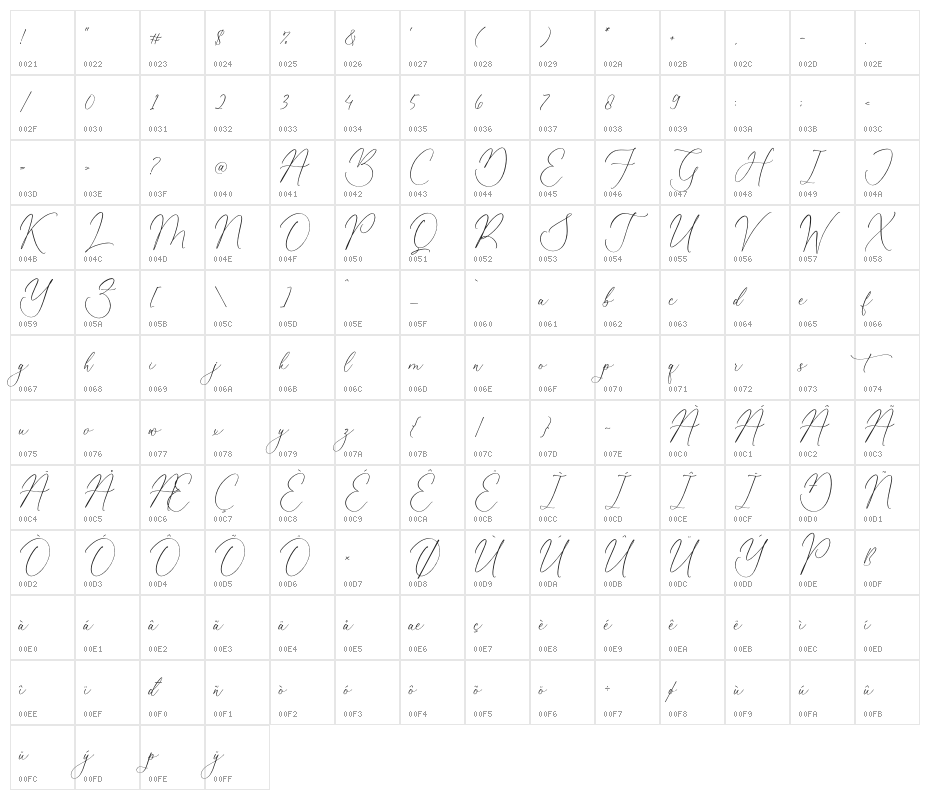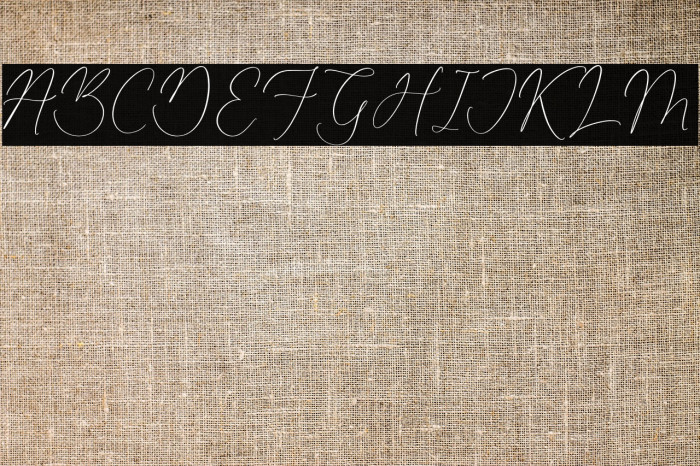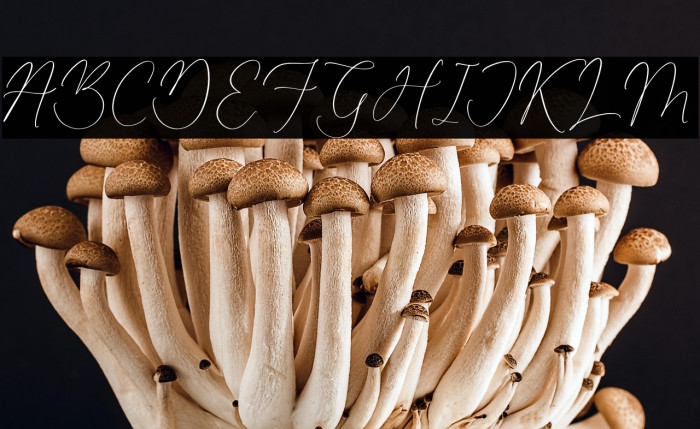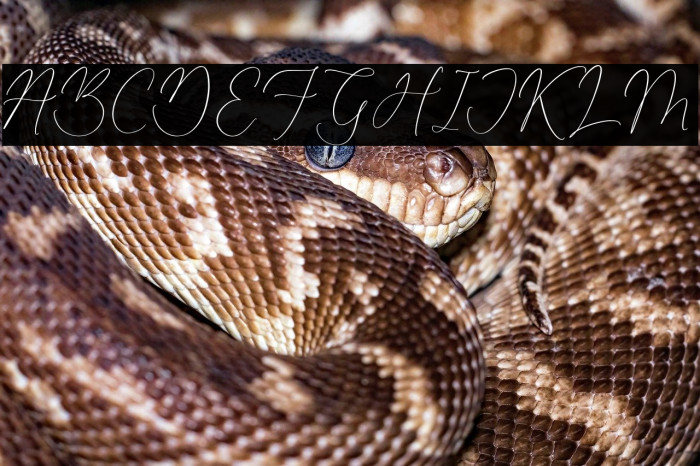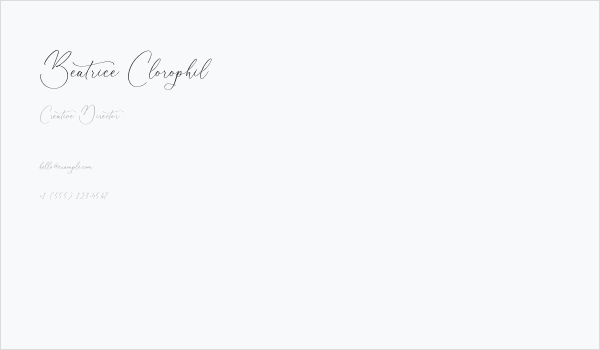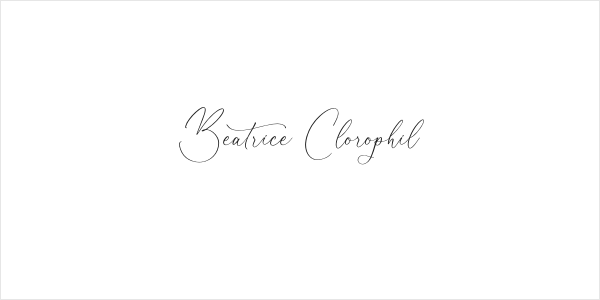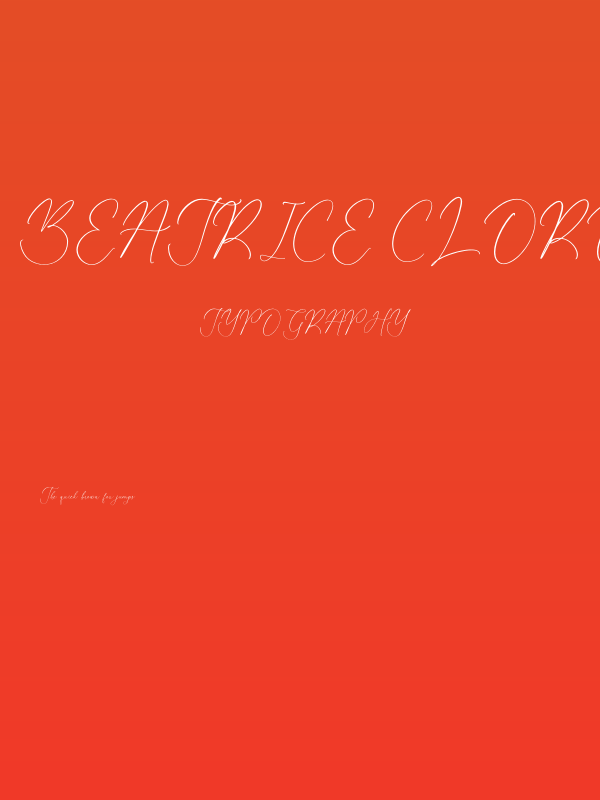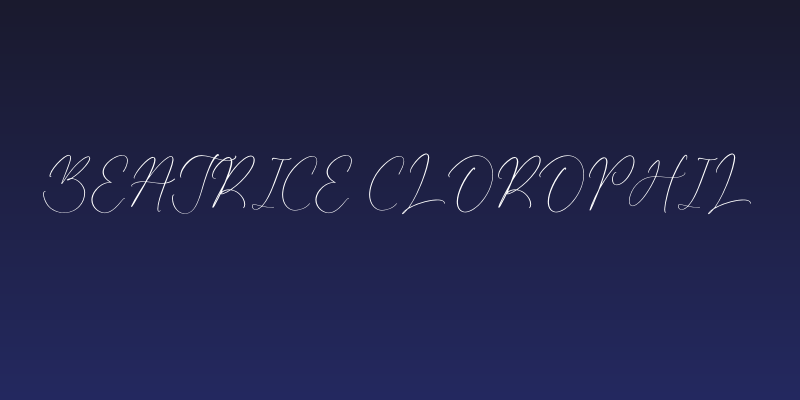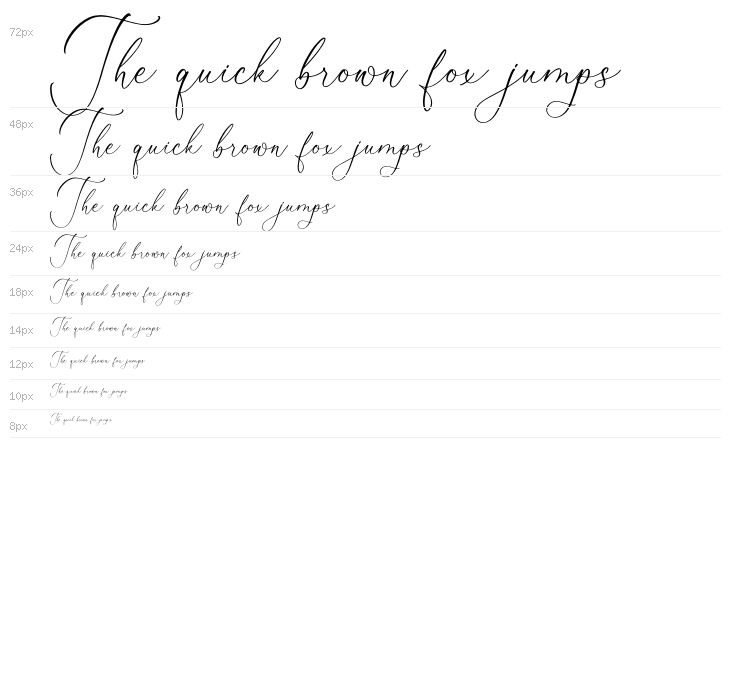
Beatrice Clorophil Font
Beatrice Clorophil Description
This elegant script font features flowing, cursive letterforms that exude sophistication and grace. The characters are intricately designed with delicate, sweeping strokes that create a sense of fluidity and movement. The uppercase letters are slightly more ornate, with extended flourishes that add a touch of drama. The lowercase letters maintain a consistent style, with smooth connections between each character, enhancing readability. The numerals and special characters are crafted with the same attention to detail, ensuring a cohesive look across all text. This font is perfect for projects that require a touch of elegance and refinement.
| Proposed Projects | Ideal for wedding invitations, elegant branding, personal stationery, and upscale packaging. |